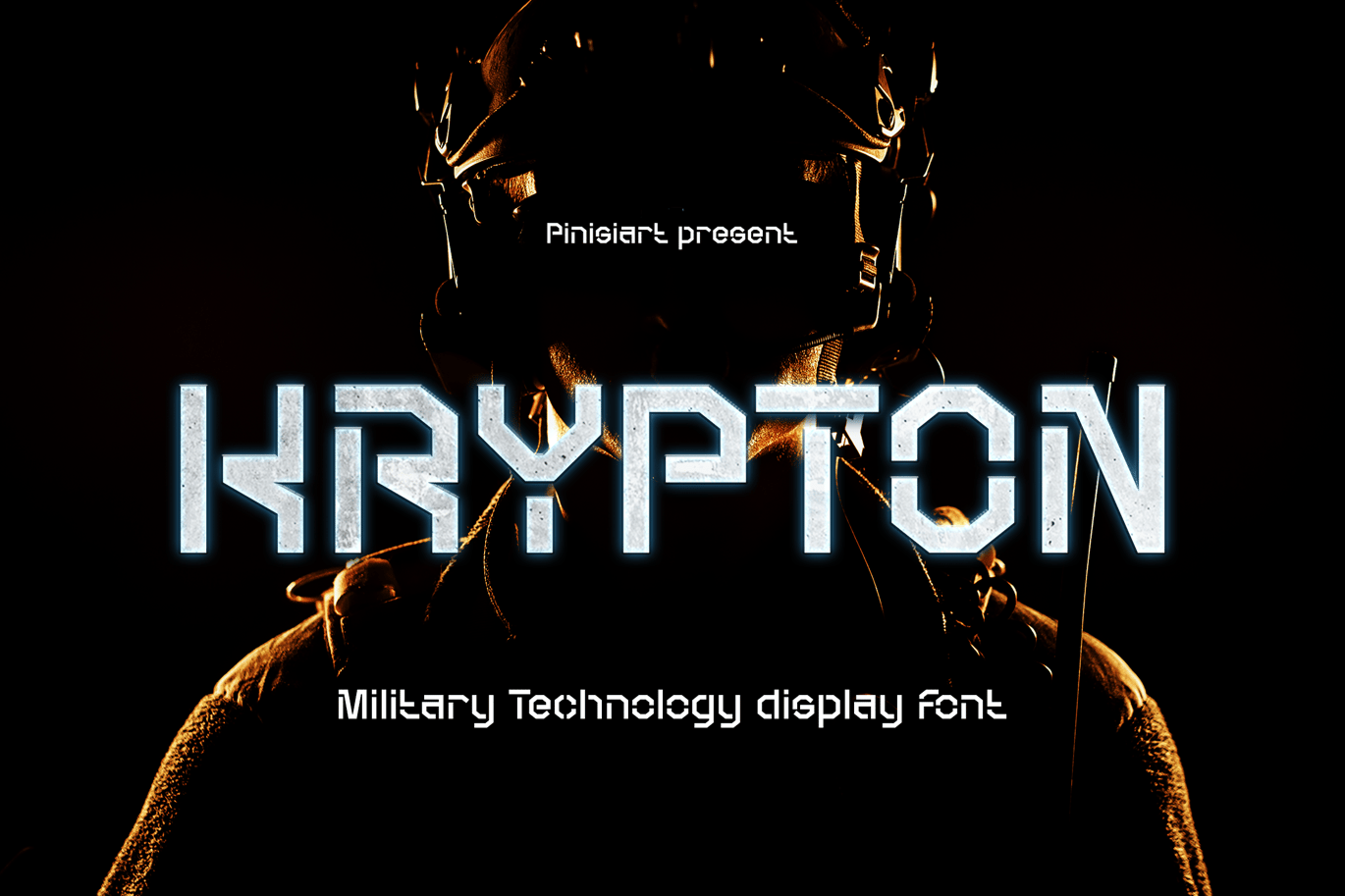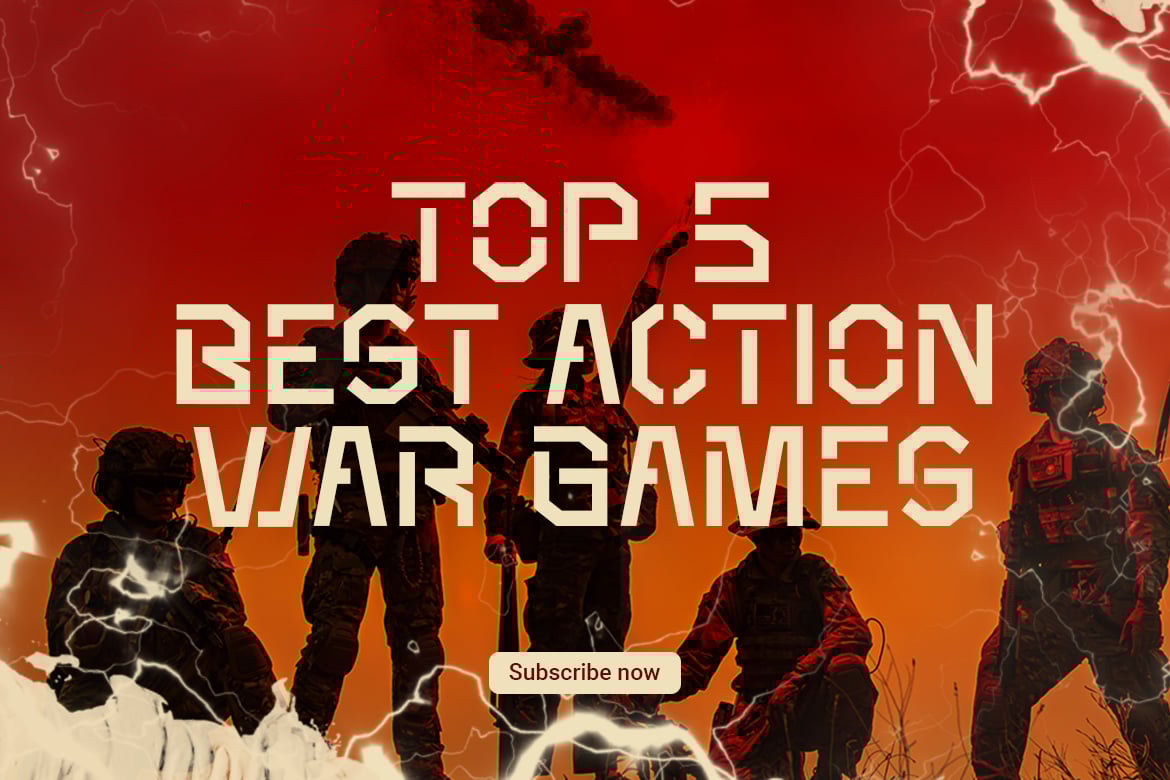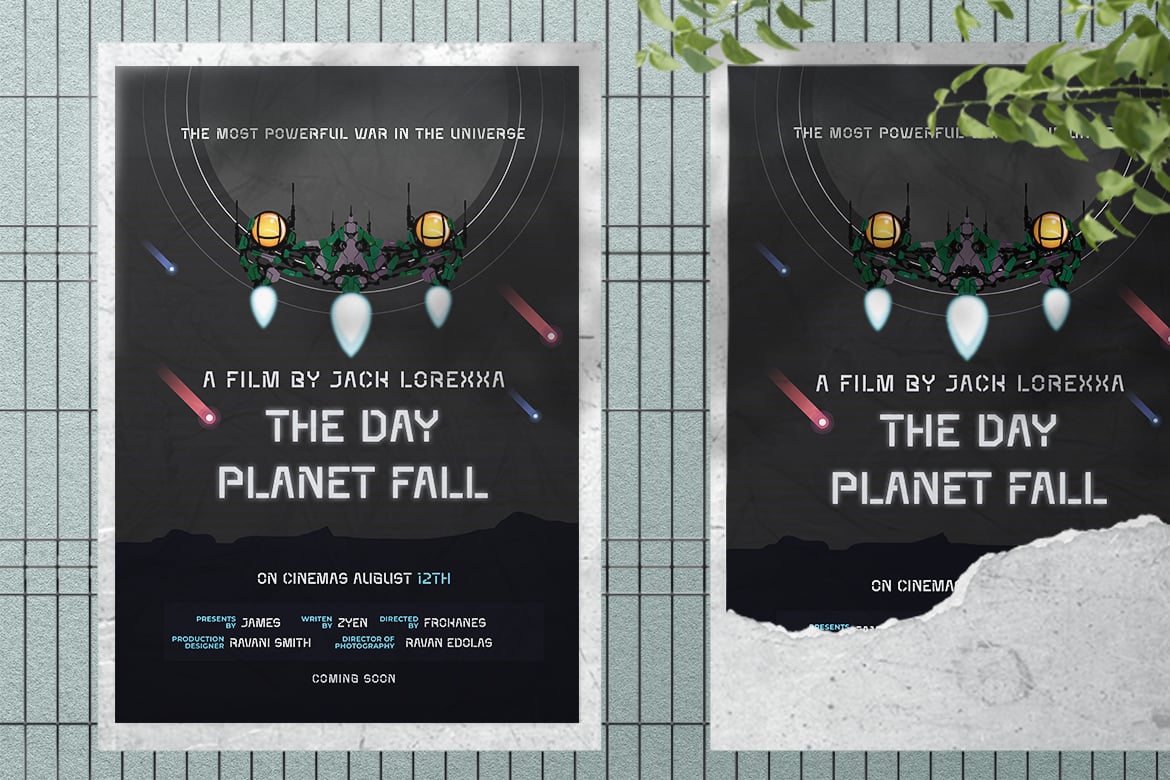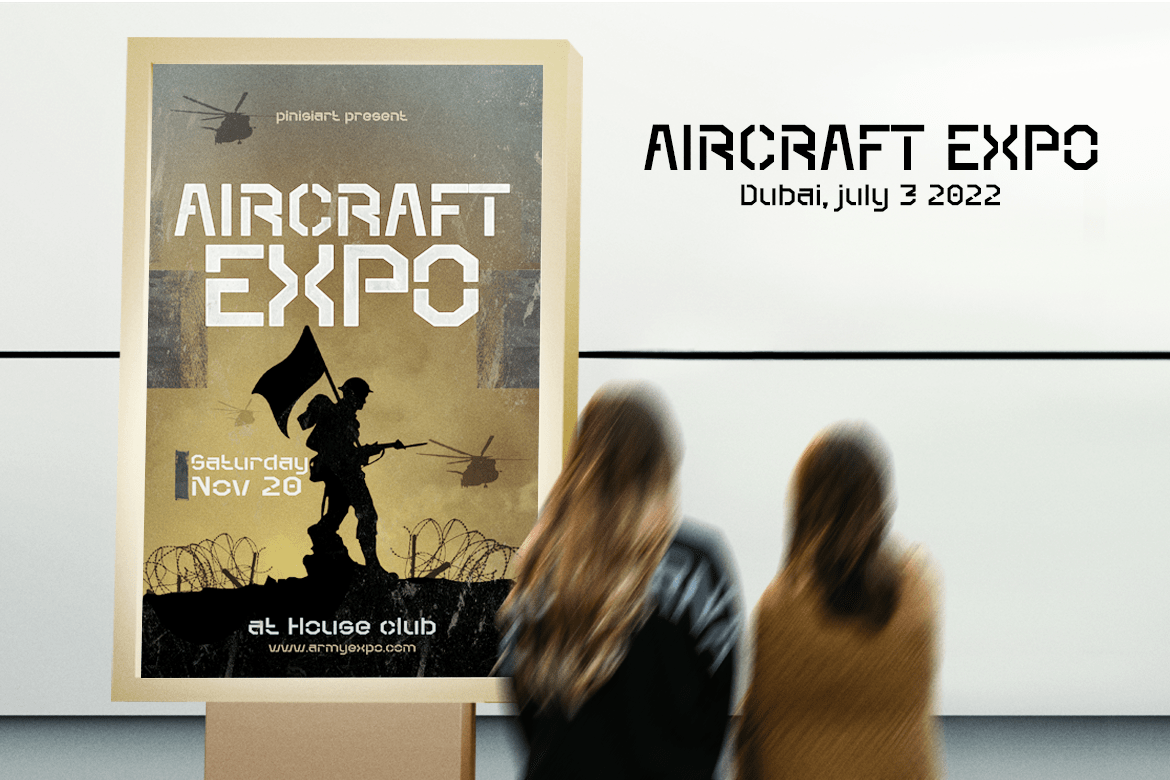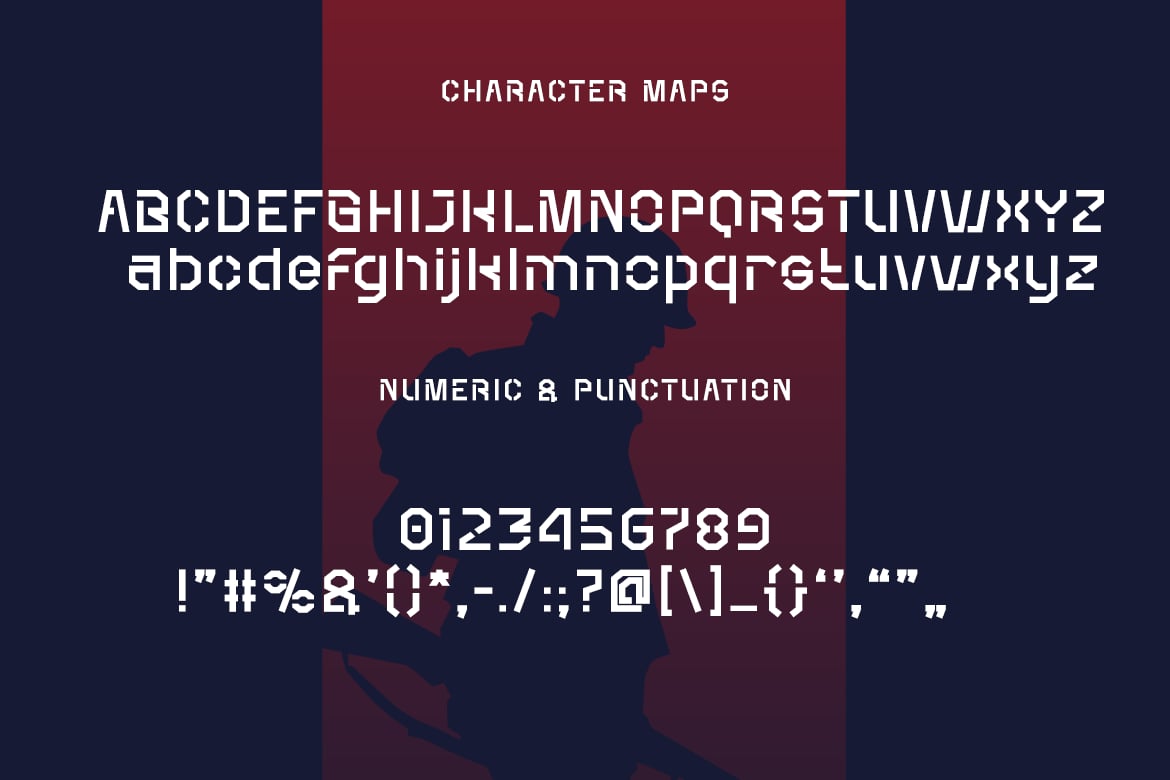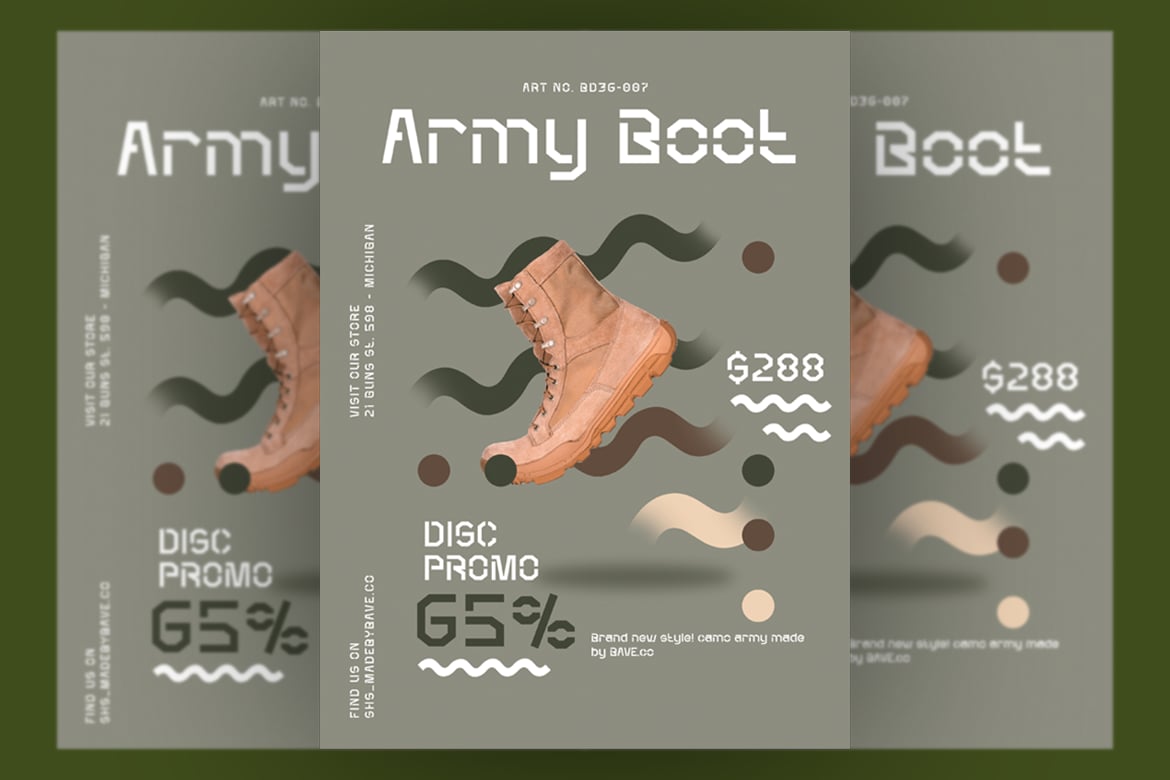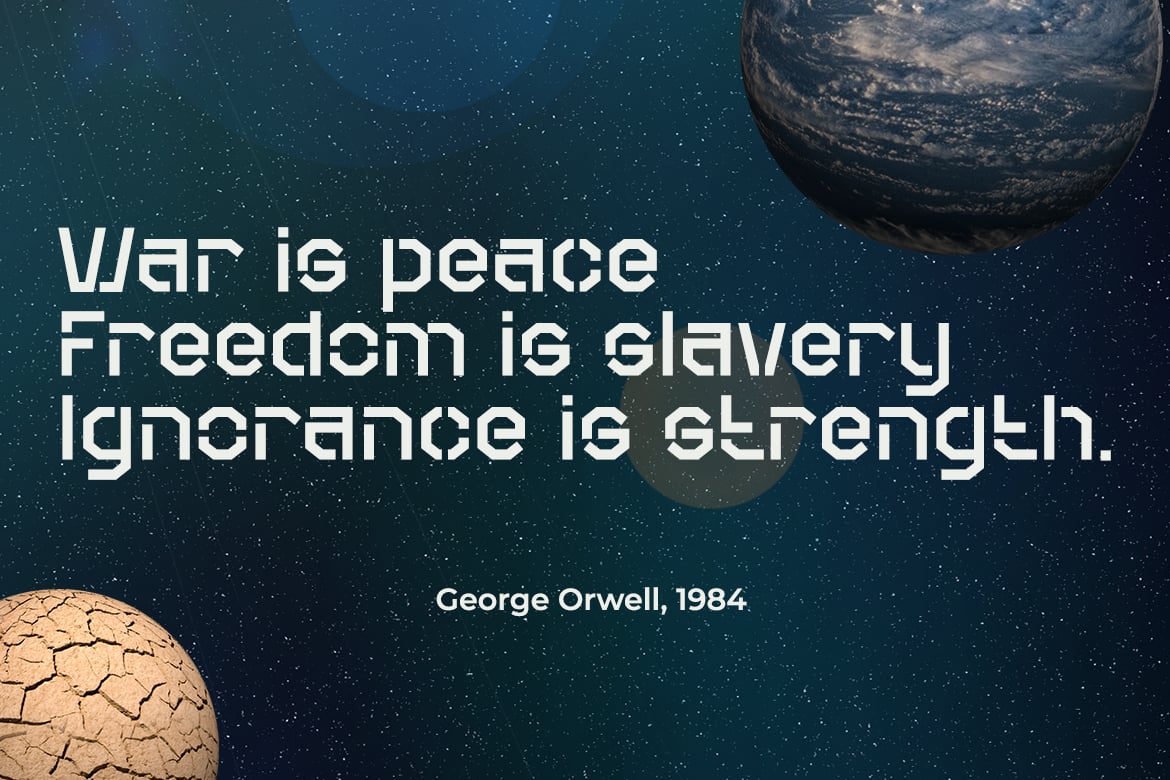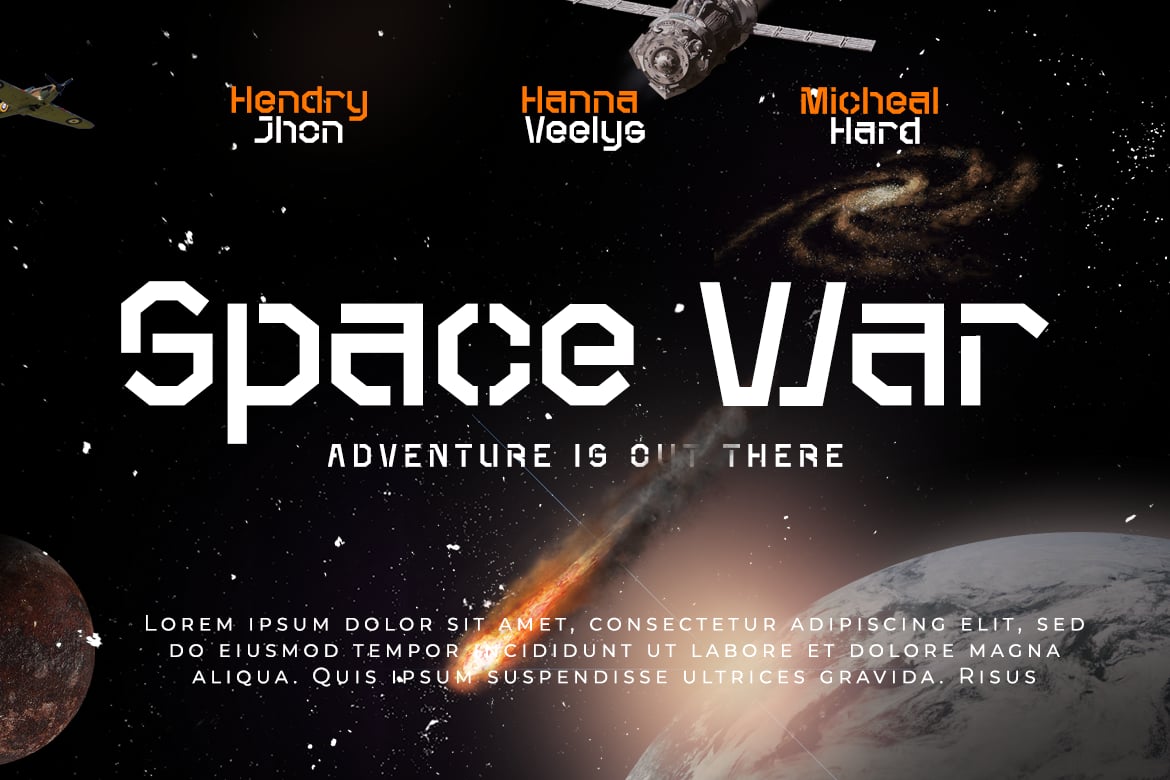
KRYPTON – Military Technology Display Font
Remember the name, its full of outer space and high-end technology written all over it.
Suit perfectly for military science segmented magazine, poster, movie title, music poster, youtube covers, youtube thumbnails, social media page covers and so on…